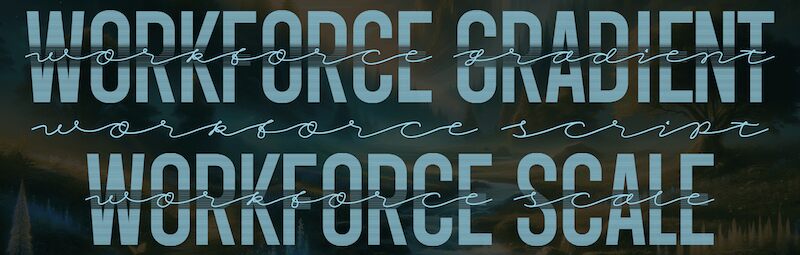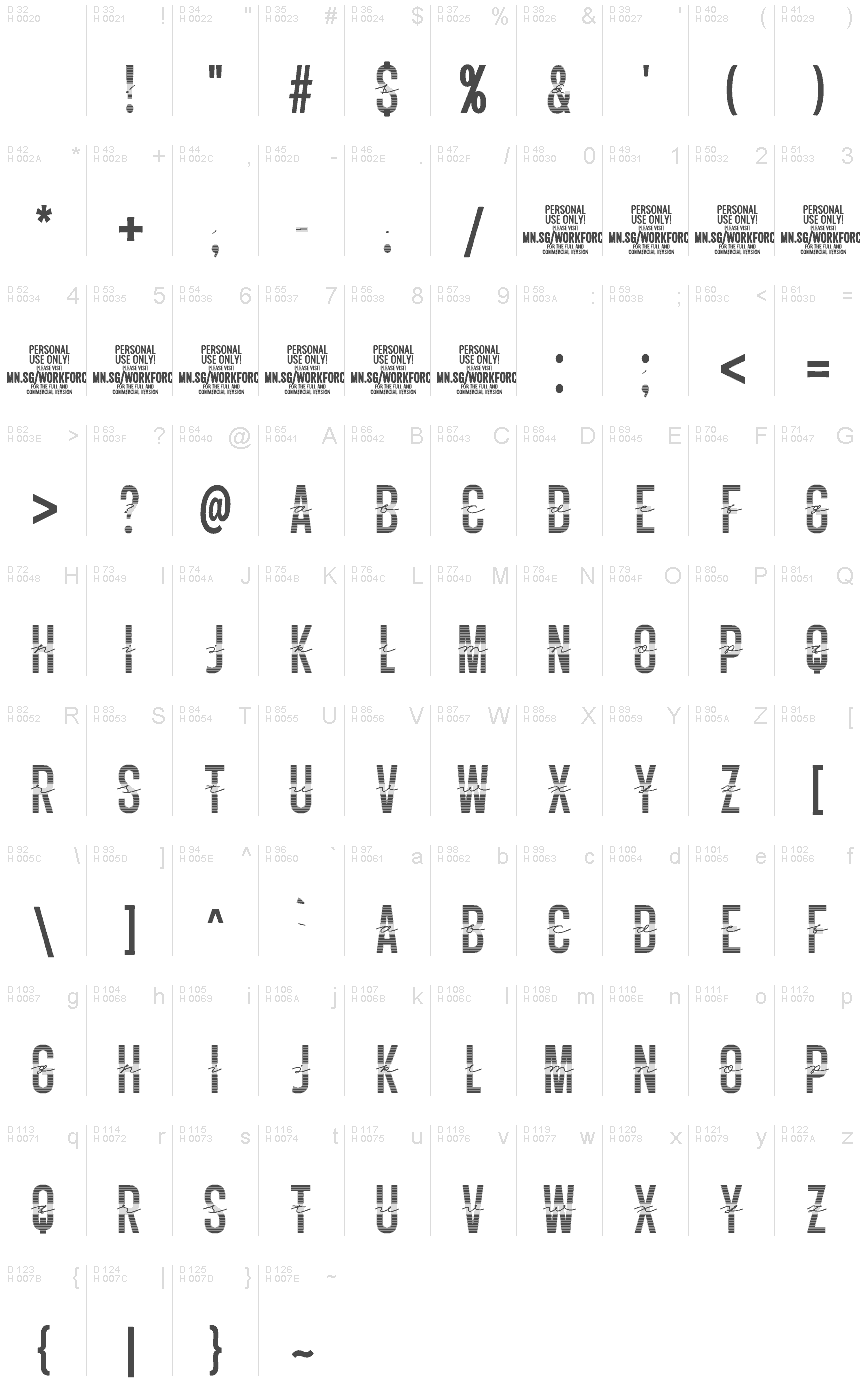
Workforce font by Mans Greback is a modern display typeface with light, condensed characters built in. This font combines script and sans-serif lettering styles giving it an elegant overall appearance.
Use this typeface for logos, excerpts, music albums covers, book covers, advertising materials, restaurant menus printables and designs. Let it appear on your social media pages including posts and cover photos with beautiful sectioned headers of matching letters.